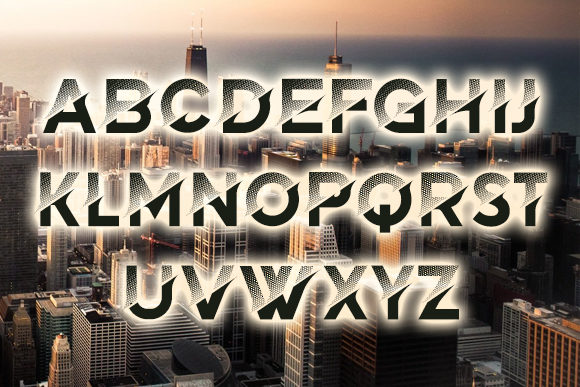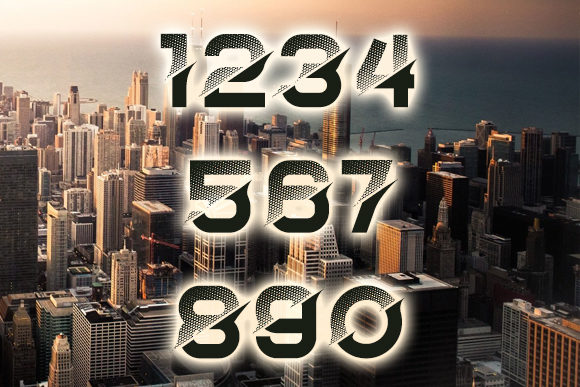
Introducing Brightness Font: Elevate Your Designs with a Bold Gradient Style
Are you tired of using the same old fonts in your designs? Do you want to add a touch of personality and uniqueness to your flyers, posters, social media posts, and more? Look no further than Brightness Font, an awesome gradient decorative font that’s sure to take your designs to the next level!
What is Brightness Font?
Brightness Font is a stunning gradient decorative font that’s perfect for designers and crafters who want to add a bold and eye-catching touch to their work. With its unique gradient effect, this font is sure to grab attention and make your designs stand out from the crowd.
Key Features of Brightness Font
• Gradient Effect: The gradient effect in Brightness Font gives it a unique and modern look that’s perfect for designs that need a pop of color and personality.
• Decorative Style: This font has a decorative style that’s perfect for adding a touch of elegance and sophistication to your designs.
• Versatile: Brightness Font is perfect for a wide range of design projects, including flyers, posters, social media posts, and more.
Why Use Brightness Font?
There are many reasons why you should consider using Brightness Font in your designs. Here are just a few:
• Add Personality to Your Designs: With Brightness Font, you can add a unique and bold touch to your designs that will set them apart from the rest.
• Perfect for Eye-Catching Designs: The gradient effect in this font makes it perfect for designs that need to grab attention and make a statement.
Design Ideas Using Brightness Font
Here are some design ideas to get you started with Brightness Font:
• Flyers: Use Brightness Font to create eye-catching flyers for events, promotions, or sales.
• Posters: Create stunning posters with Brightness Font that will grab attention and make a statement.
• Social Media Posts: Use Brightness Font to create engaging social media posts that will stand out from the crowd.
• Logos: Use Brightness Font to create unique and memorable logos for your business or brand.
Brightness Font is an awesome gradient decorative font that’s perfect for designers and crafters who want to add a bold and eye-catching touch to their work. With its unique gradient effect and decorative style, this font is sure to elevate your designs and make them stand out from the crowd. So why wait? Download Brightness Font today and start creating stunning designs that will leave a lasting impression!